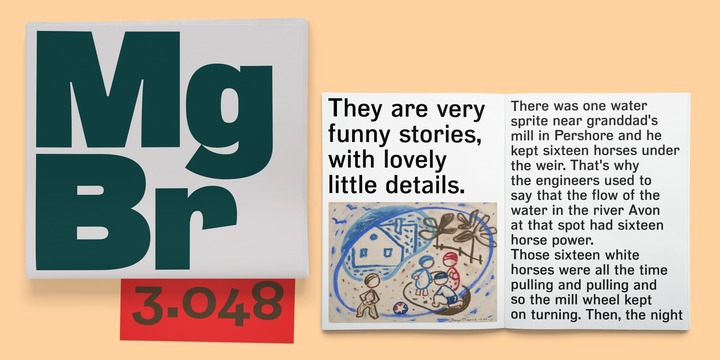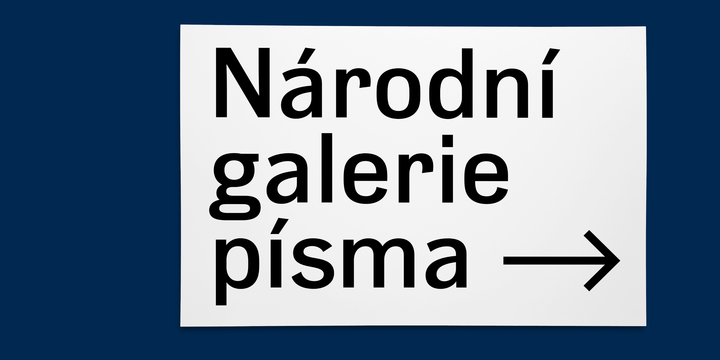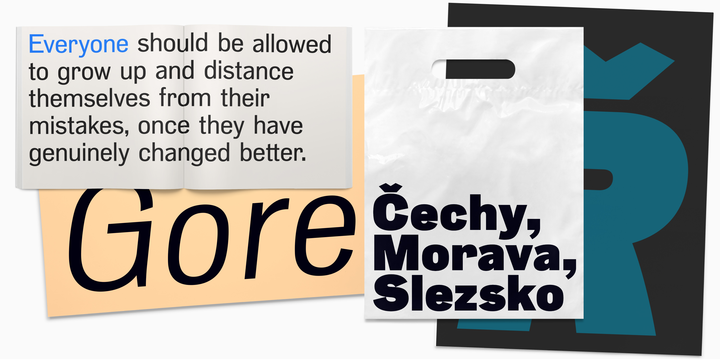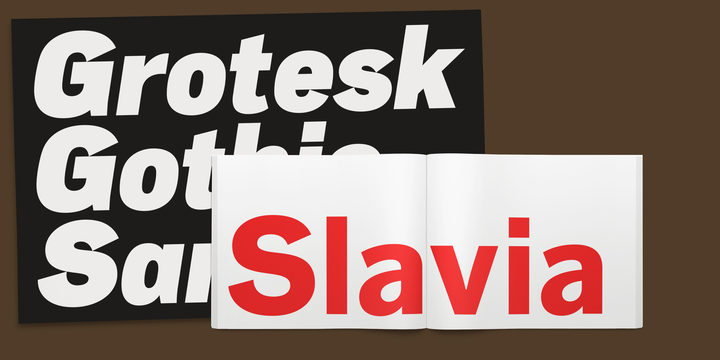
Slavia was originally inspired by wide-spread grotesque designs from the 1910s. You can find such typefaces on ad posters, newspapers, childrens books and avant-garde collages.
However, the original typographic shapes served us only as a basis for a new and energetic drawings.
Most innovation happened in the bold and italic styles. Those are drawn as completely new, with many calligraphic details and alternative characters.
Slavia contains a zeitgeist of its time, but dont expect any nostalgia. This is one of the truly universal fonts which will always stand out. Use it anywhere from corporate identity to book design and websites. Slavia is also available as Slavia Press & Repress, which playfully refers to its original letterpressed specimens.